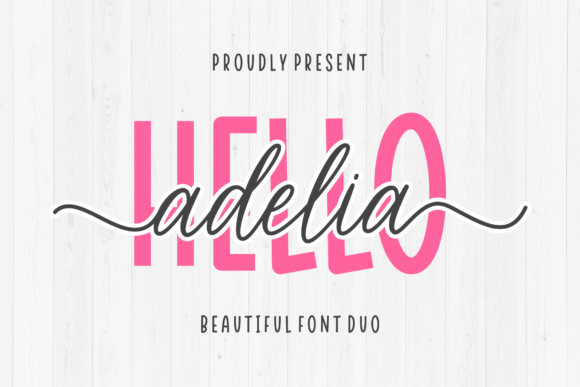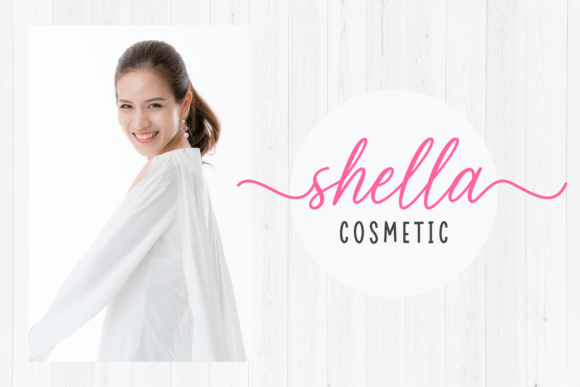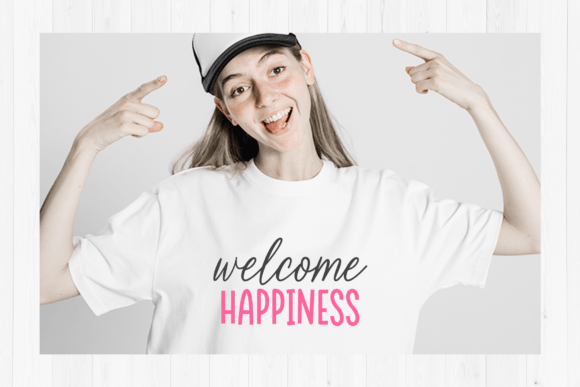
Hello Adelia Font
About the Hello Adelia Font
Step up your design game with Hello Adelia Font, a font that exudes confidence and style. Hello Adelia is a lovely and beautiful font duo with two monoline and script font shapes that go really well together.
Be creative without limits by using two shapes at once!
It would be great for any project you need!
Hello Adelia’s monoline and script styles are ideally suited for headlines, logos, short-form text on packaging, and social media graphics. Its elegant yet playful nature makes it perfect for brands targeting a young, sophisticated audience. Avoid using it for large blocks of body text or UI elements; the script style’s delicate nature compromises readability in extended use.
For a balanced pairing, consider using a clean, geometric sans-serif like Montserrat or Lato for body text alongside Adelia’s script. Alternatively, a classic serif like Garamond or Playfair Display can provide a sophisticated contrast, enhancing the overall luxury feel. Pairing both the monoline and script styles together will offer versatility in short, impactful designs.
Hello Adelia projects an overall personality best described as elegant yet playful. Its versatility allows it to adapt well to a variety of creative applications, provided the text remains concise and visually prominent.
Hello Adelia Font Example